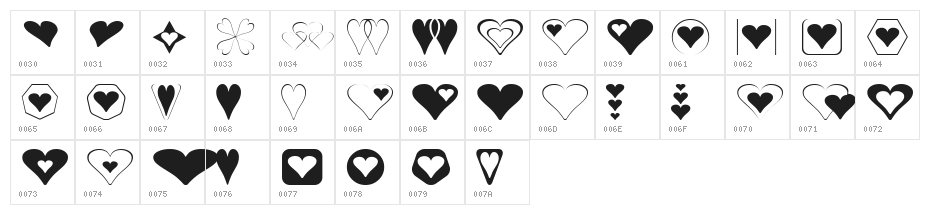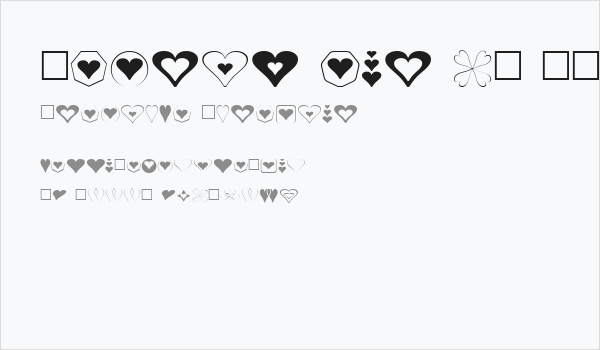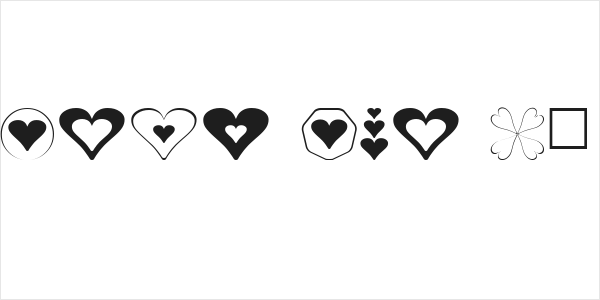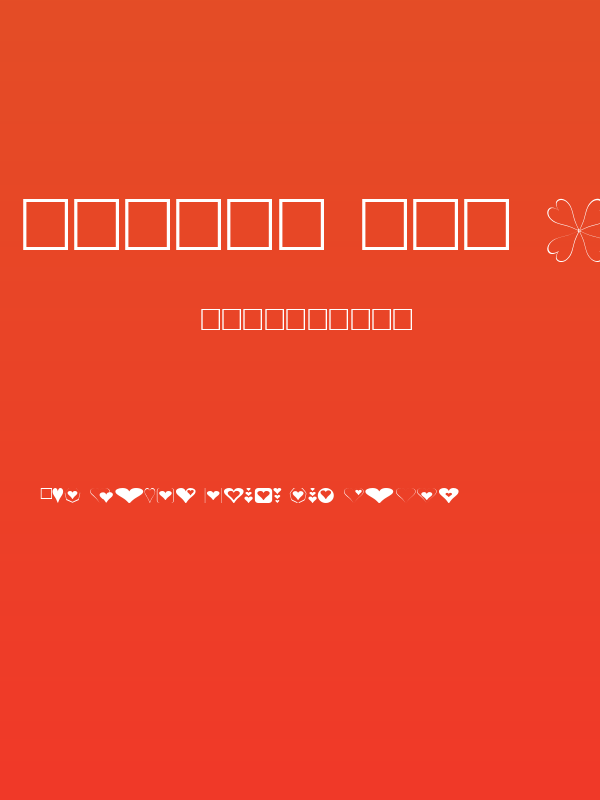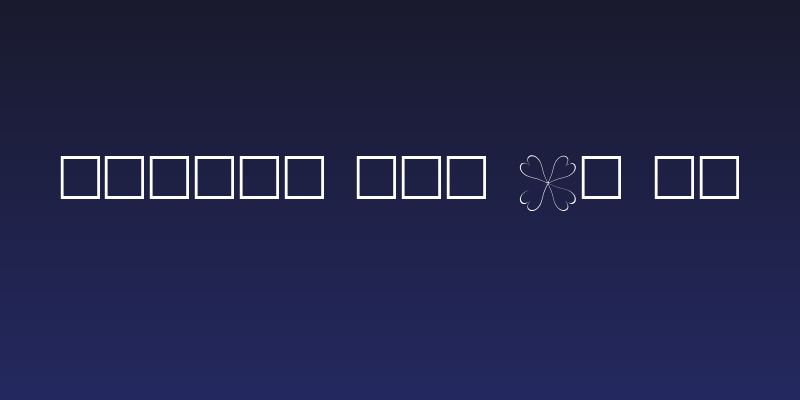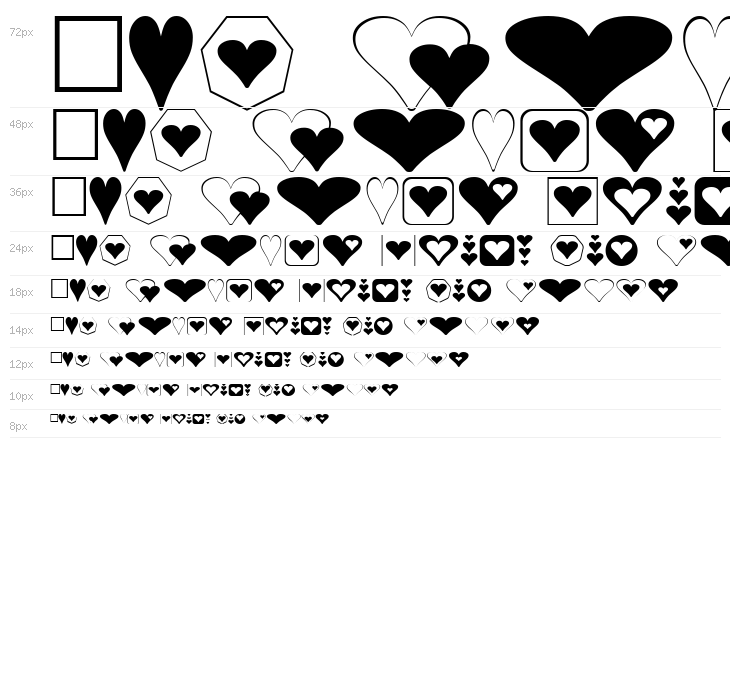
Hearts for 3D FX Font
This is a decorative font featuring a variety of heart shapes, each enclosed in different geometric forms such as circles, squares, and hexagons. The hearts vary in style, with some being solid and others outlined, offering a playful and romantic aesthetic. The font is designed to be visually engaging, with each character presenting a unique heart design that can add a whimsical touch to any project.
| Use Case | Logos, Headlines, Decorative elements |
| Proposed Projects | Ideal for Valentine's Day cards, wedding invitations, romantic-themed posters, and any design project that requires a touch of love and creativity. |